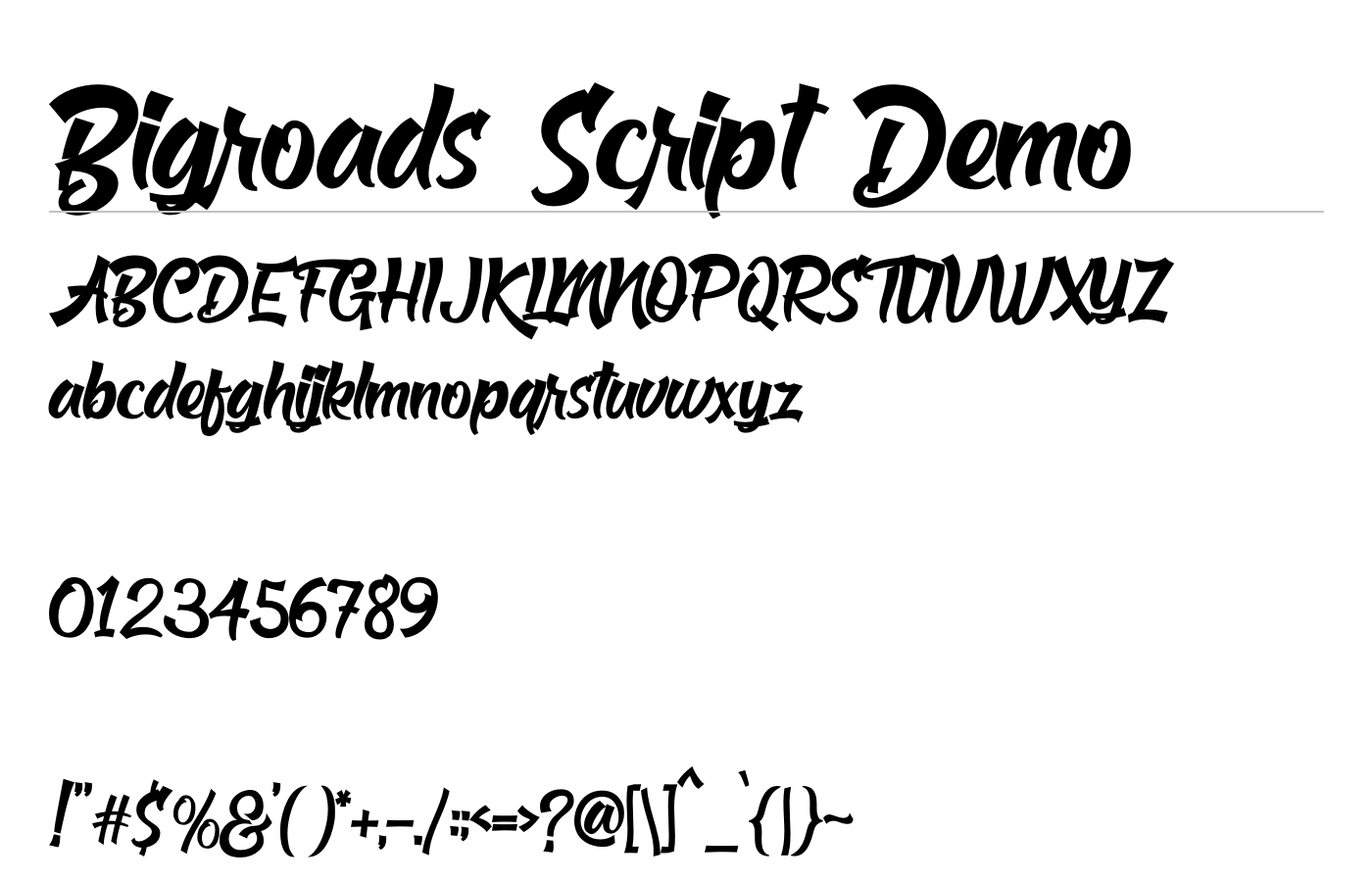
Bigroads Script Demo is a bold, energetic script font with a strong brushstroke style and moderate contrast, combining playful curves and sharp edges that create a dynamic, hand-painted feel. Its lively letterforms, including unique capital shapes and slightly condensed proportions, make it ideal for eye-catching headlines, branding, and creative projects that want to convey fun, creativity, and a casual yet confident personality. This font works beautifully for posters, logos, and packaging where a bold, handcrafted look is desired.
Bigroads Script Demo Font
About Bigroads Script Demo Font